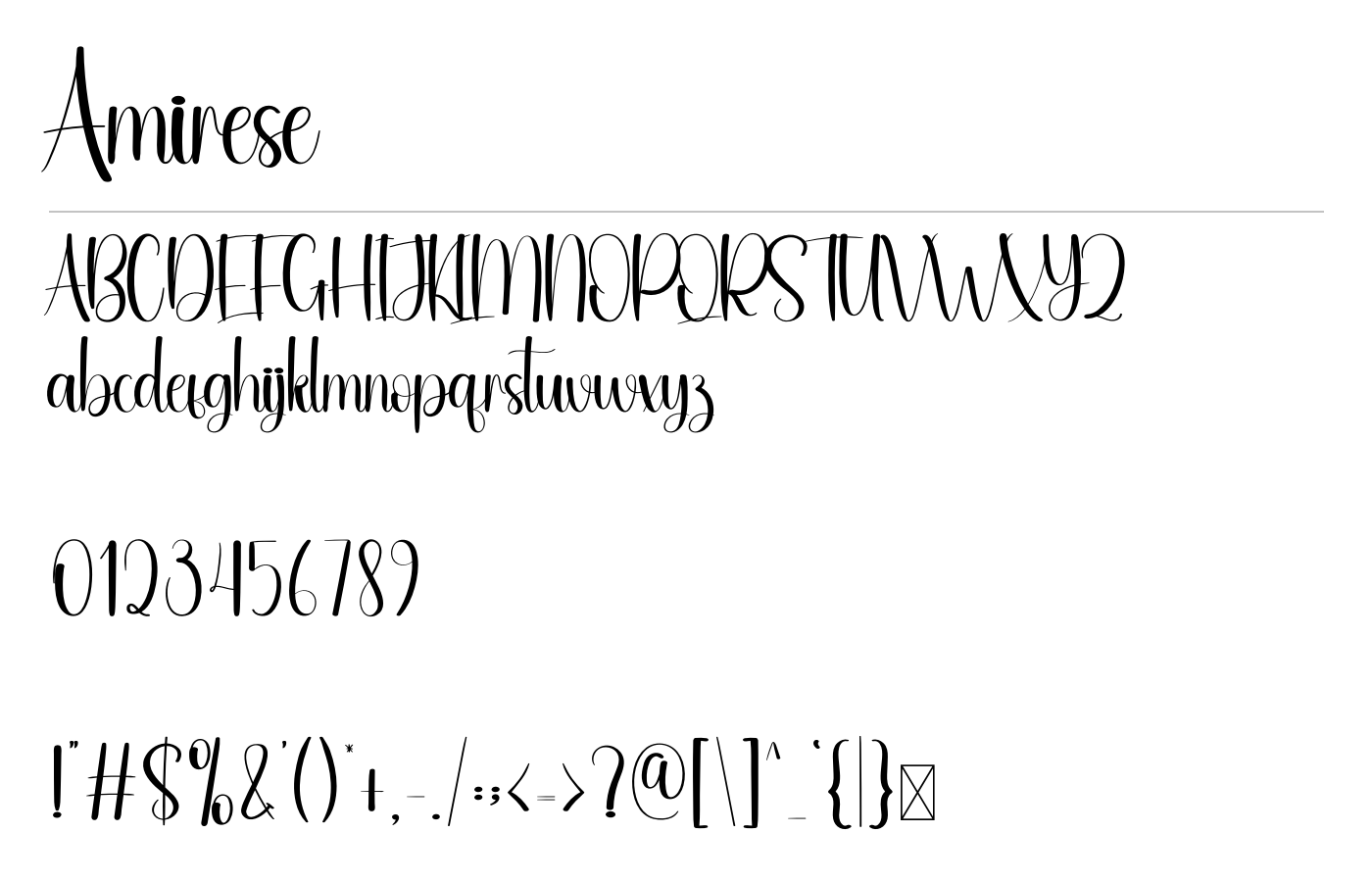
Amirese is a playful, handwritten script font with tall, slender letterforms and elegant, fluid strokes that create a whimsical yet refined appearance. Its thin weight and slightly uneven, natural flow make it perfect for creative projects like invitations, branding, and casual editorial designs where a personal, charming touch is desired. This font works well for any context seeking a balance of sophistication and lightheartedness without sacrificing readability.
Amirese Font